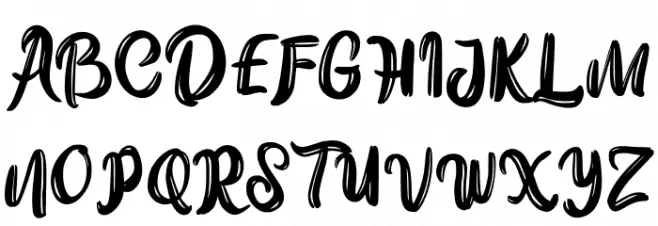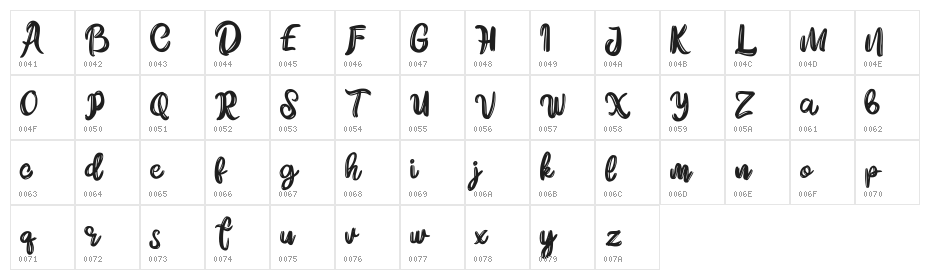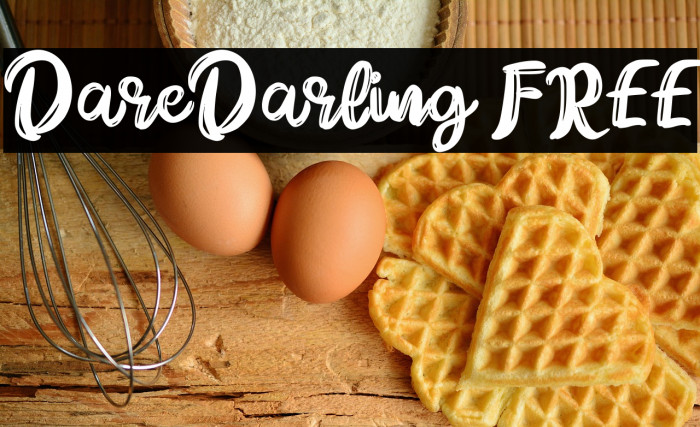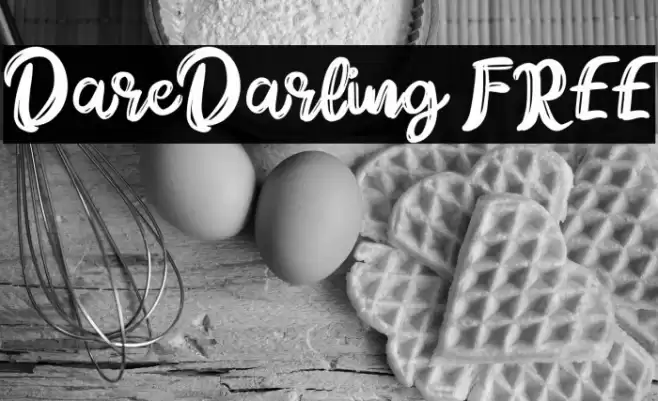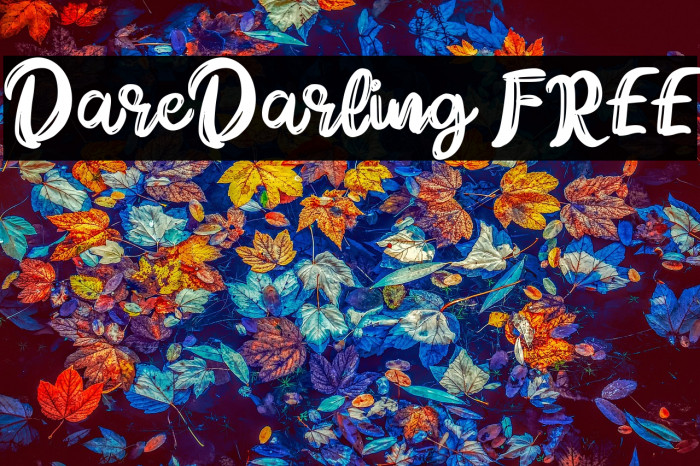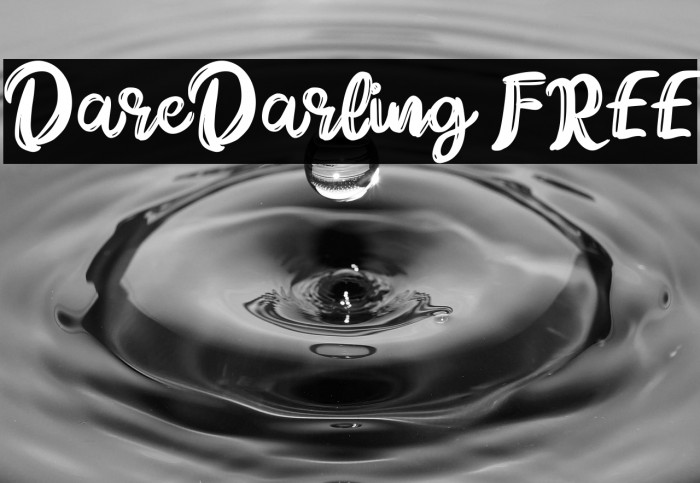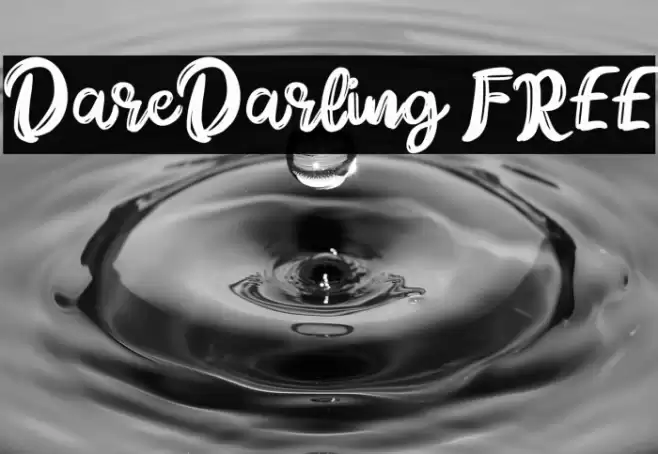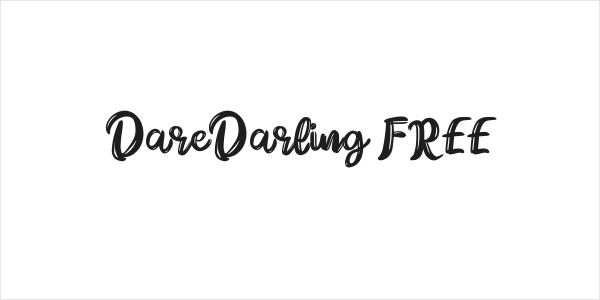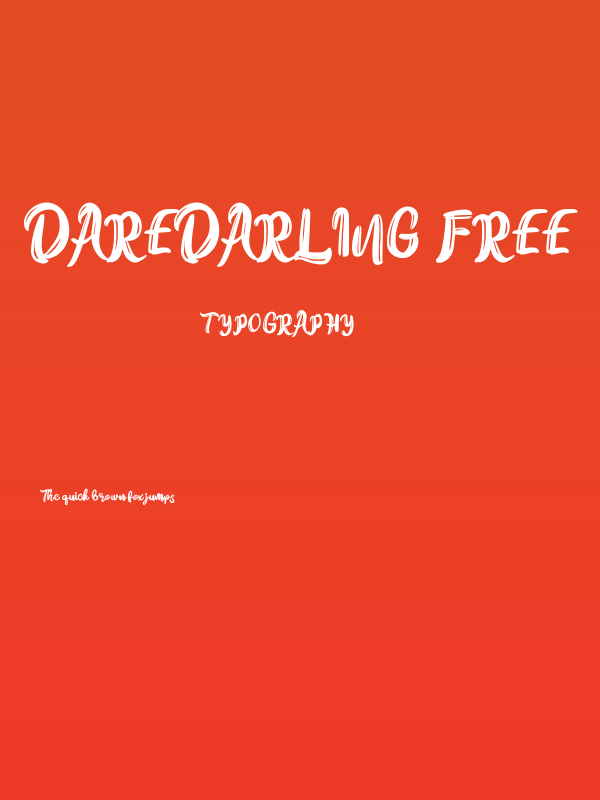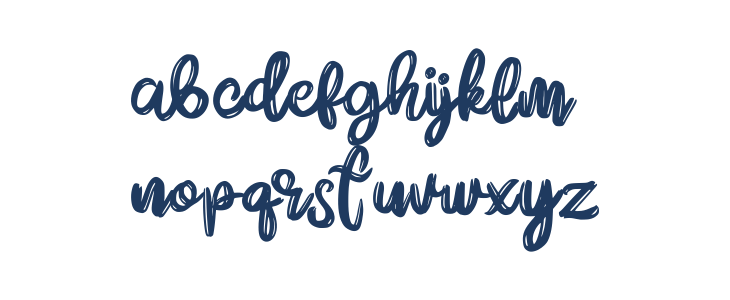
DareDarling FREE Font
DareDarling FREE Description
This font features a bold, expressive style with a handwritten appearance. The letters are characterized by thick strokes and a dynamic flow, giving them a lively and energetic feel. The uppercase and lowercase letters maintain a consistent style, with some letters featuring unique flourishes and loops that add to the font's decorative nature. The overall design is playful and artistic, making it suitable for creative projects. The font's boldness ensures high visibility, while its decorative elements provide a touch of elegance and flair.
| Proposed Projects | Ideal for greeting cards, invitations, posters, and branding materials that require a personal and artistic touch. |